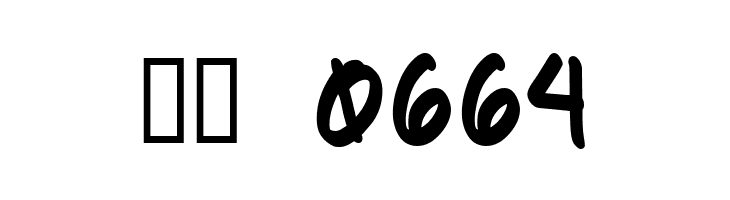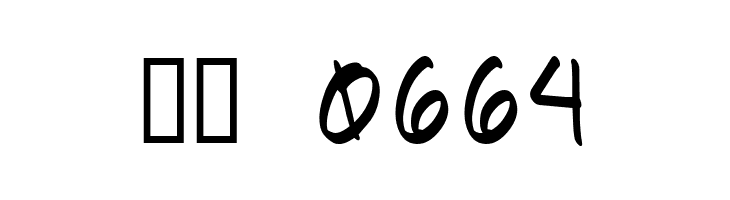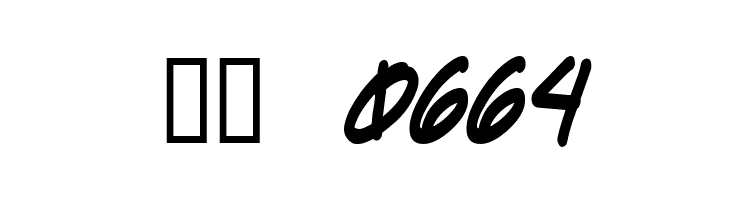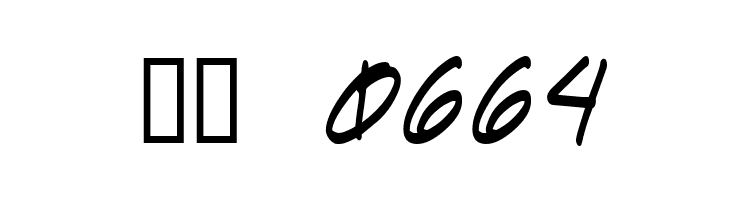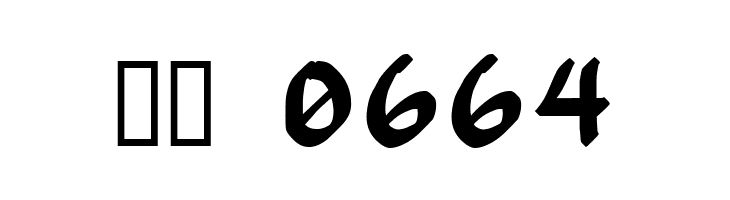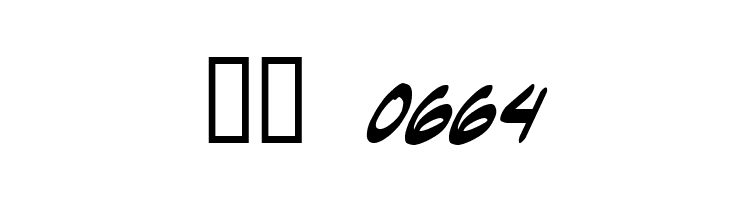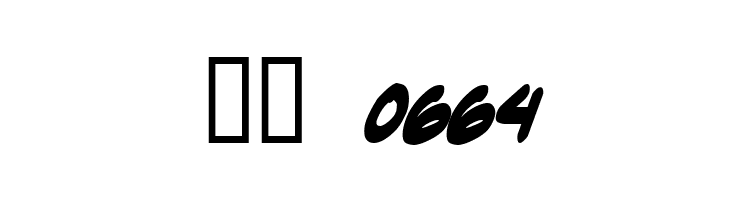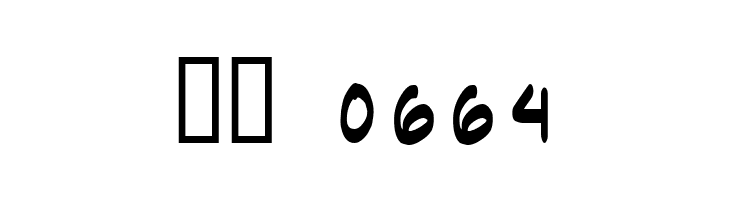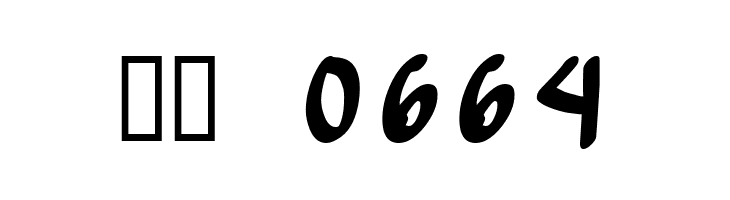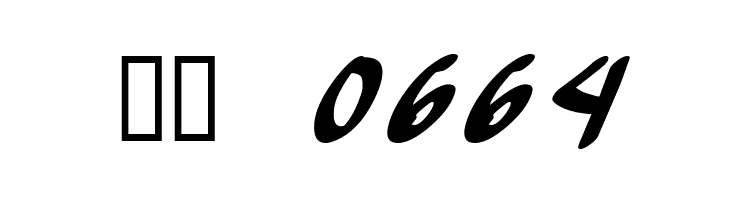
A bold, rounded, handwritten-style font with a playful and casual vibe.
A playful and casual handwritten font with rounded, dynamic strokes.
A bold, italicized, rounded handwritten font with a playful and dynamic style.
A dynamic, rounded italic script font with a fluid, elegant style.
A bold, handwritten font with a playful and dynamic style.
A bold, playful font with rounded edges and a hand-drawn style.
A bold, italic script font with dynamic, cursive letterforms.
A bold, italicized font with dynamic and energetic strokes.
A playful, hand-drawn font with bold, rounded strokes and a whimsical style.
A bold, playful handwritten font with thick strokes and a casual style.
A bold, italic font with dynamic and energetic strokes.
A bold, playful handwritten font with thick, rounded strokes.
A bold, italic font with dynamic and energetic strokes.